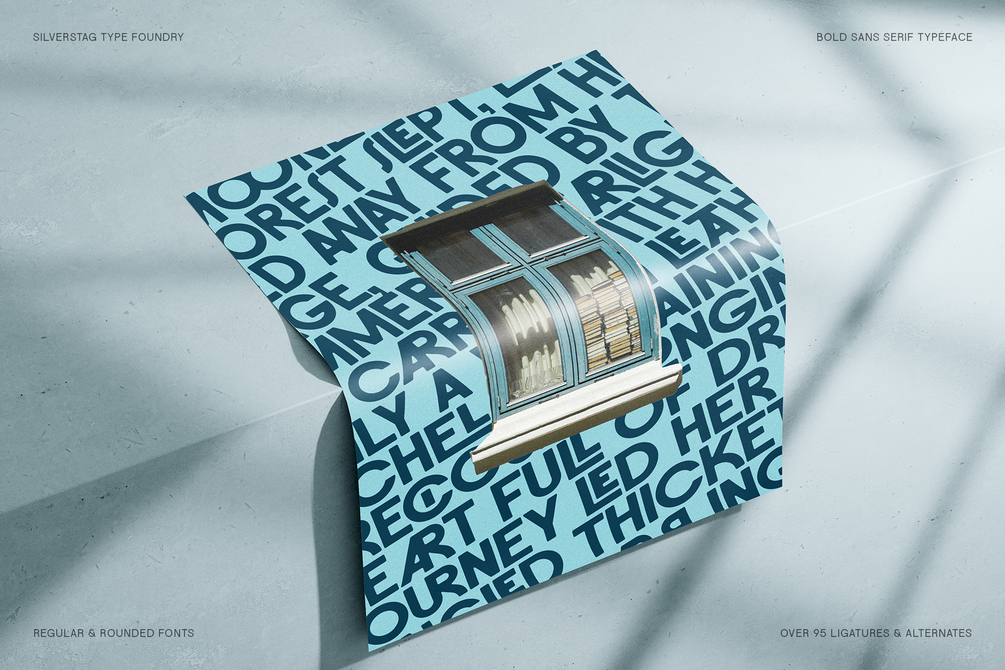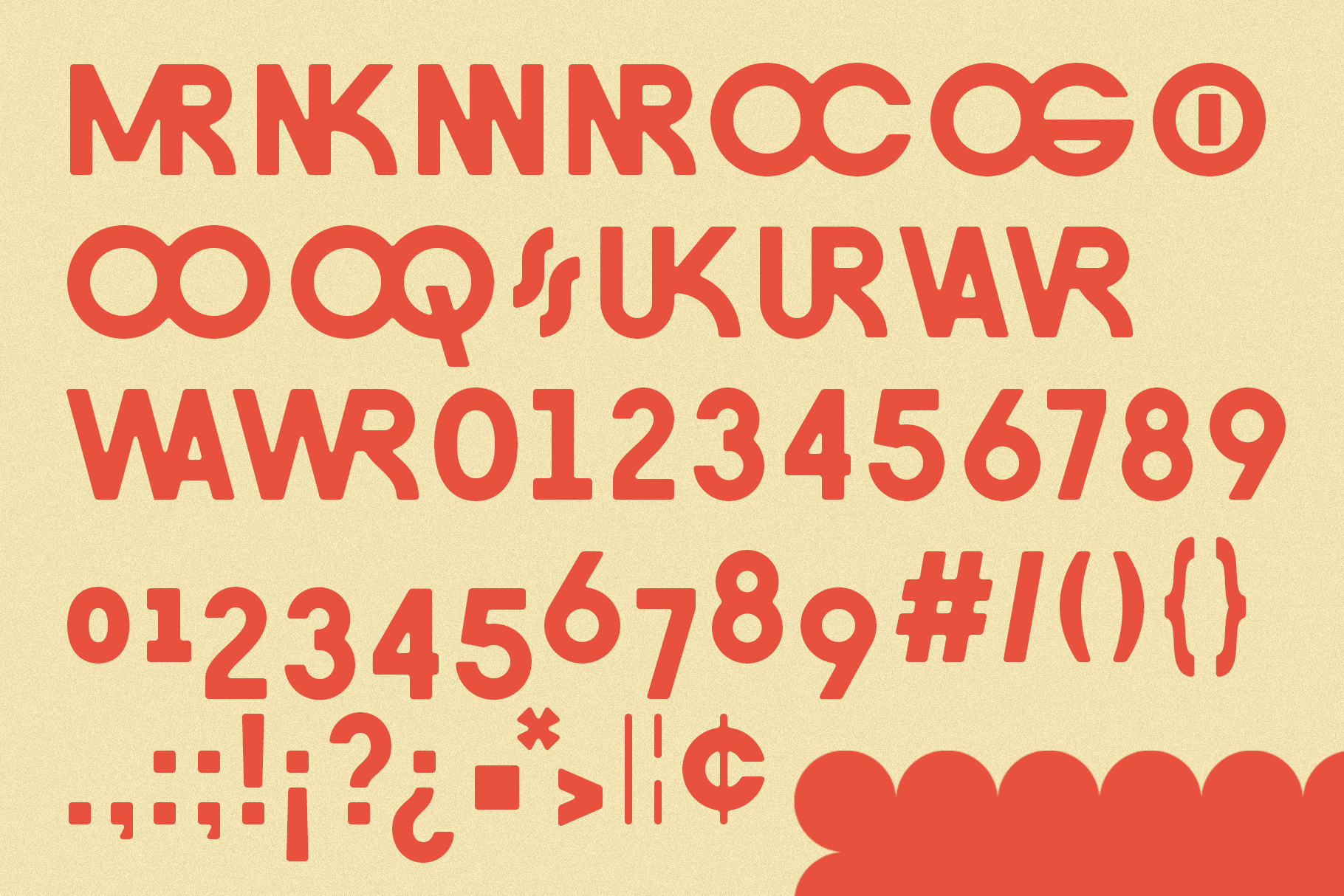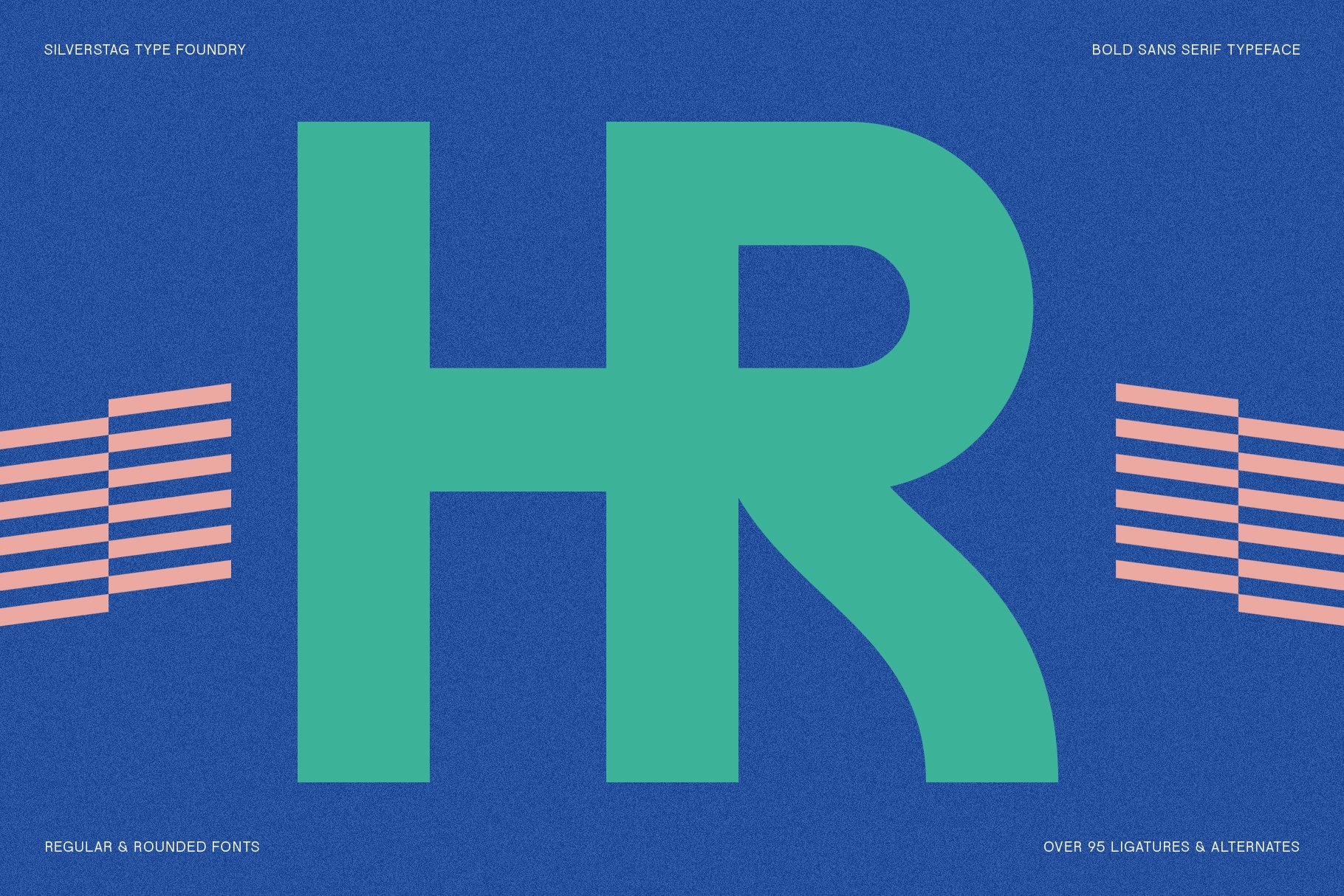
FlyBridge - Bold Ligature Rich Sans Serif Typeface
Introducing FlyBridge: The Bold, Ligature-Rich Sans Serif Font That's Taking Design by Storm
Unleash your inner typographic daredevil with FlyBridge, the unapologetically bold sans serif font that's packed with personality and style. With over 95 unique ligatures and support for 90+ languages, FlyBridge is the ultimate tool for creating eye-catching headlines, logos, and branding that demand attention.
Fly High with Four Unique Styles:
• FlyBridge Regular: The cornerstone of the family, this bold and confident style is perfect for making a statement.
• FlyBridge Outline: Add a touch of airiness and visual interest with this edgy outlined version.
• FlyBridge Rounded: For a softer, more approachable look, try this version with rounded corners and smoother edges.
• FlyBridge Rounded Outline
Unleash Your Creativity:
FlyBridge's extensive ligature collection allows you to effortlessly create unique and captivating word forms. Explore the endless possibilities and let your imagination soar!
Perfect for:
• Branding: Create bold and memorable logos that stand out from the crowd.
• Headlines: Grab attention with impactful headlines that demand a second look.
• Posters & Advertising: Make a bold statement with eye-catching visuals.
• Social Media Graphics: Create scroll-stopping content that engages your audience.
• Packaging Design: Elevate your product packaging with a touch of modern flair.
Key Features:
• Over 95 ligatures
• 90+ language support
• 4 unique styles (Regular, Outline, Rounded, Rounded Outline)
Don't just design, make a statement with FlyBridge!